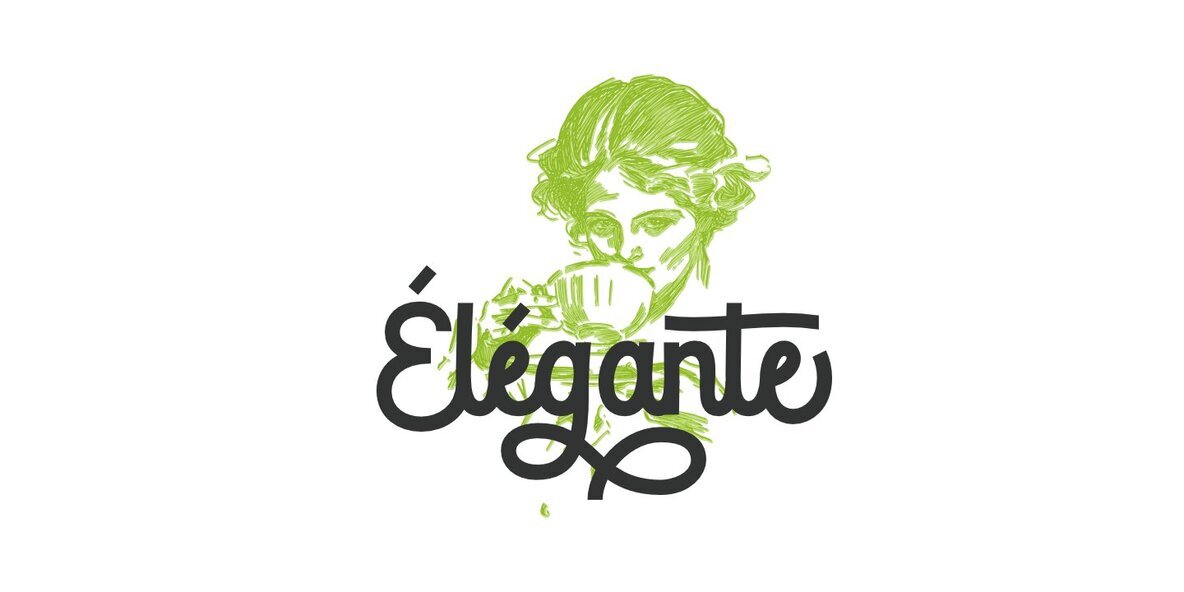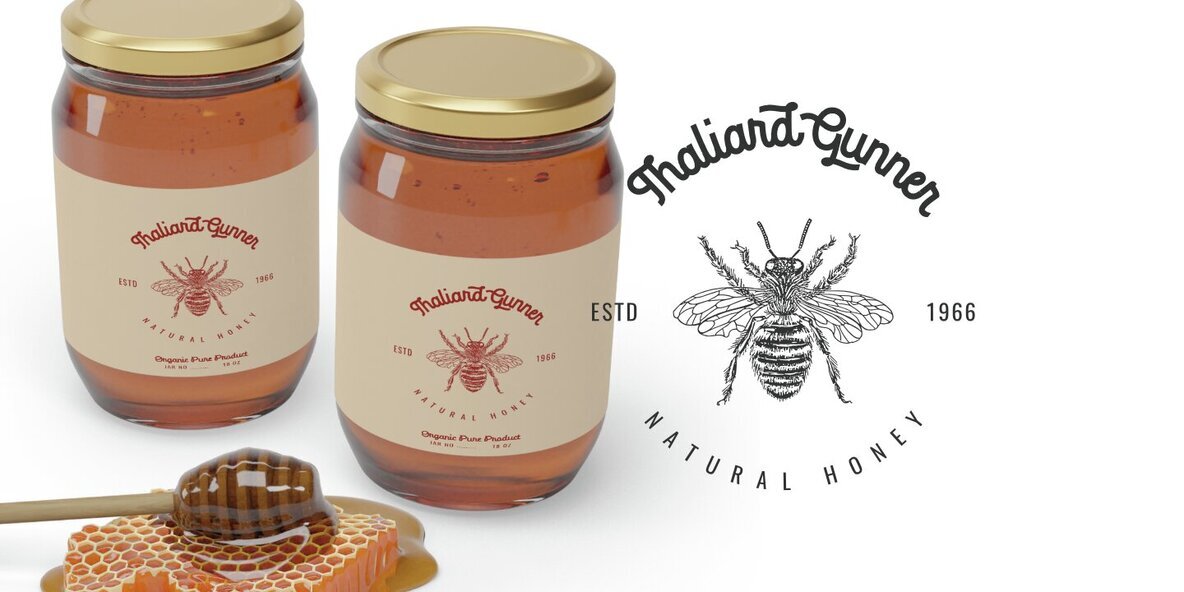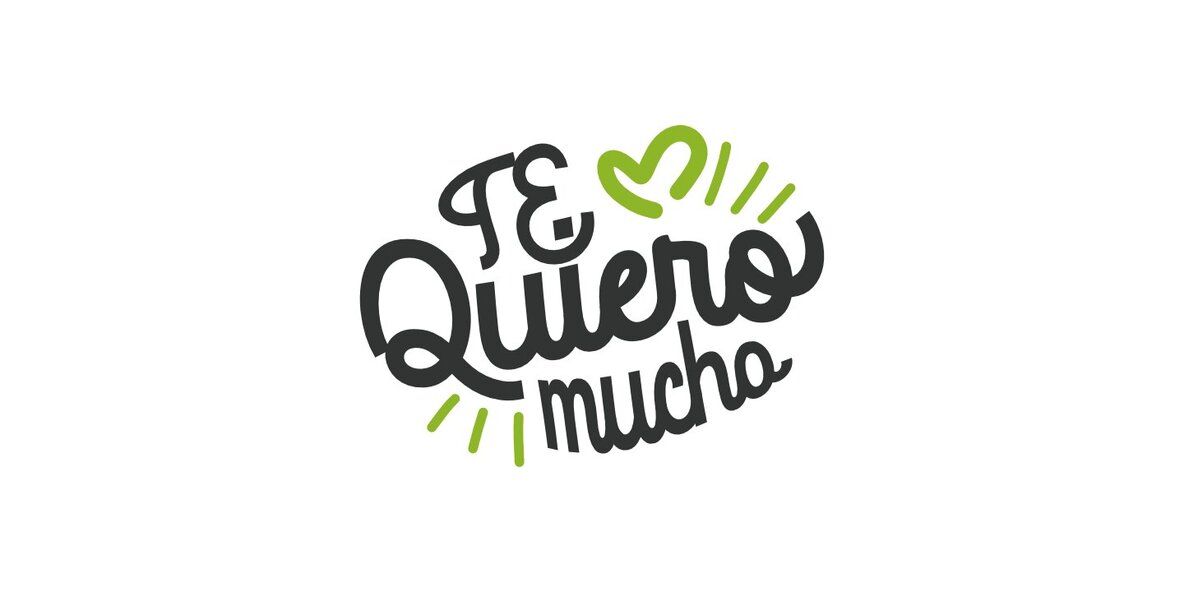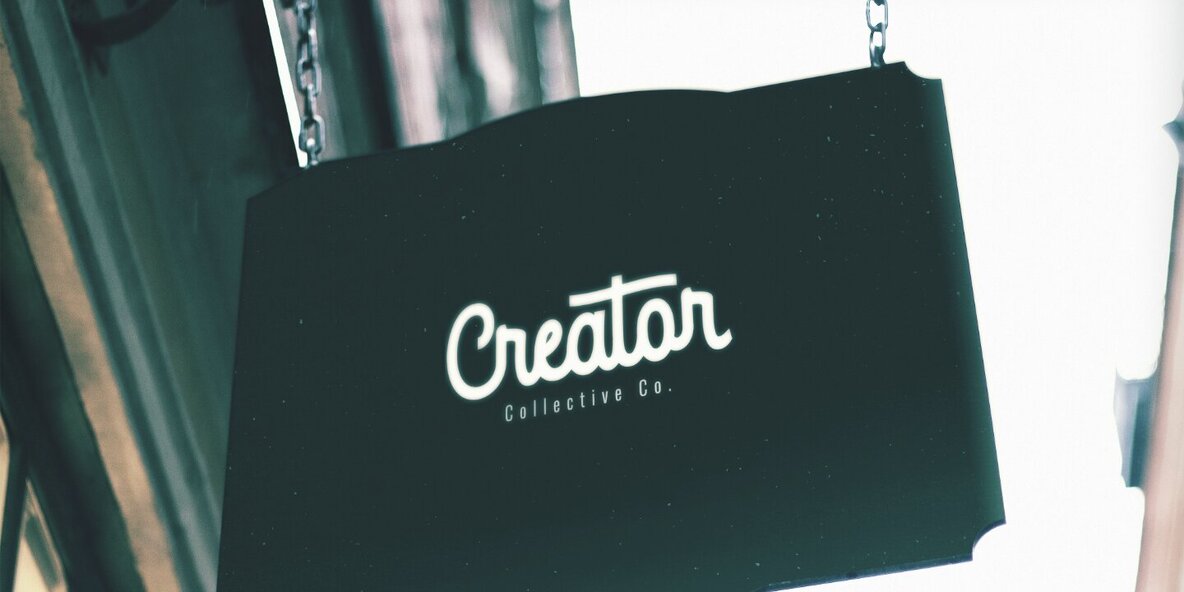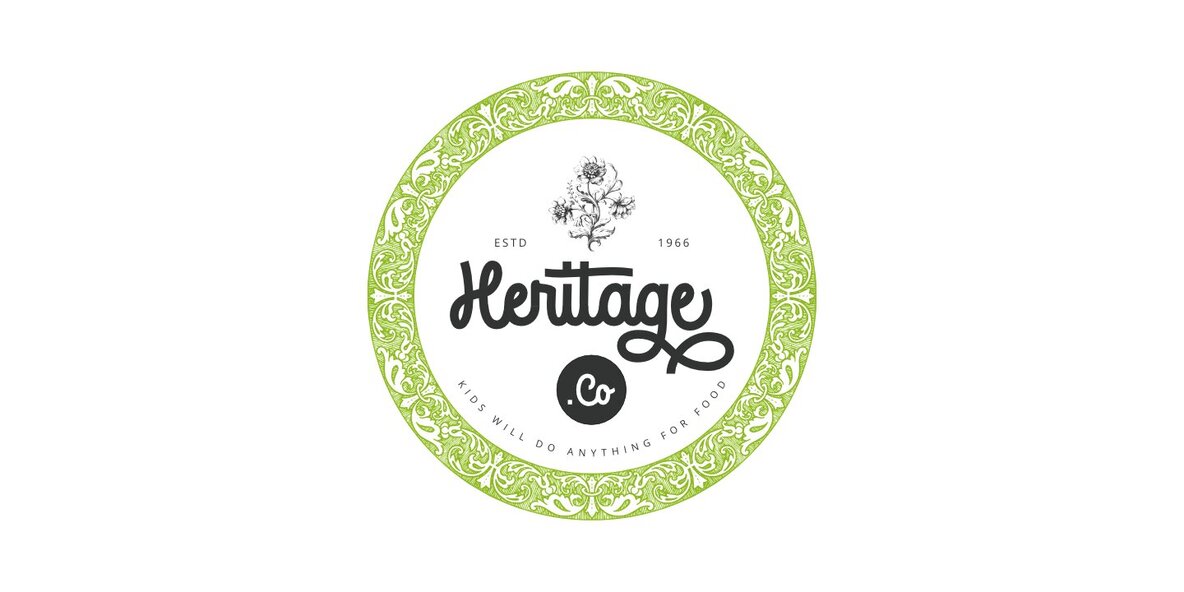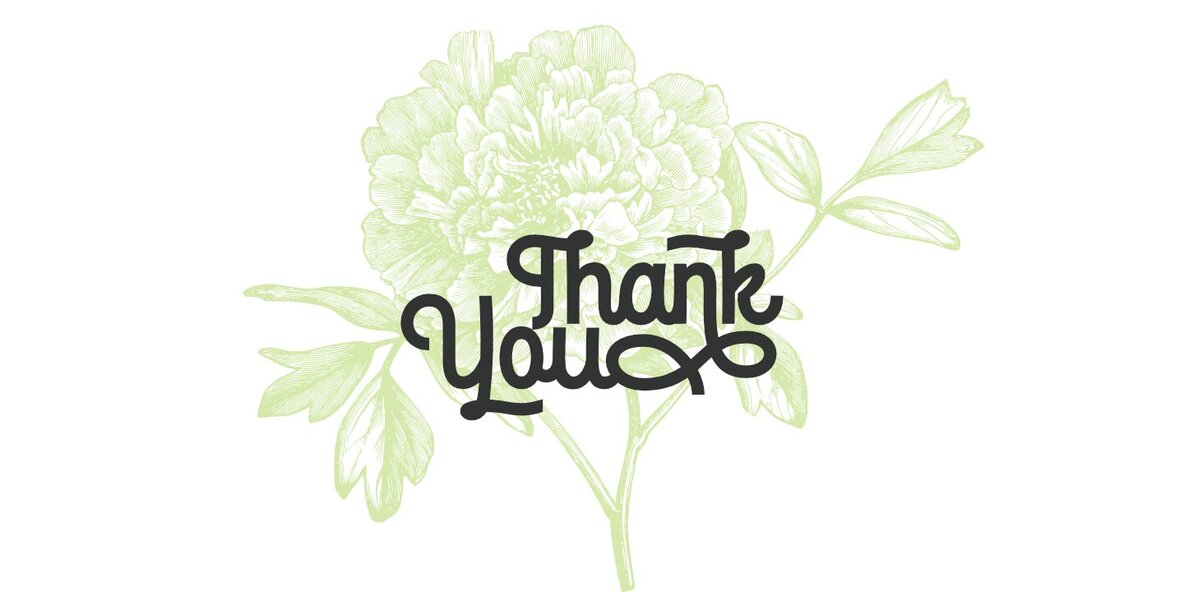
Aetherline Font
Aetherline is a captivating vintage monoline script font that gracefully marries the nostalgia of the past with the sleekness of modern design. With its carefully crafted, unbroken strokes, Aetherline evokes the essence of classic handwriting.